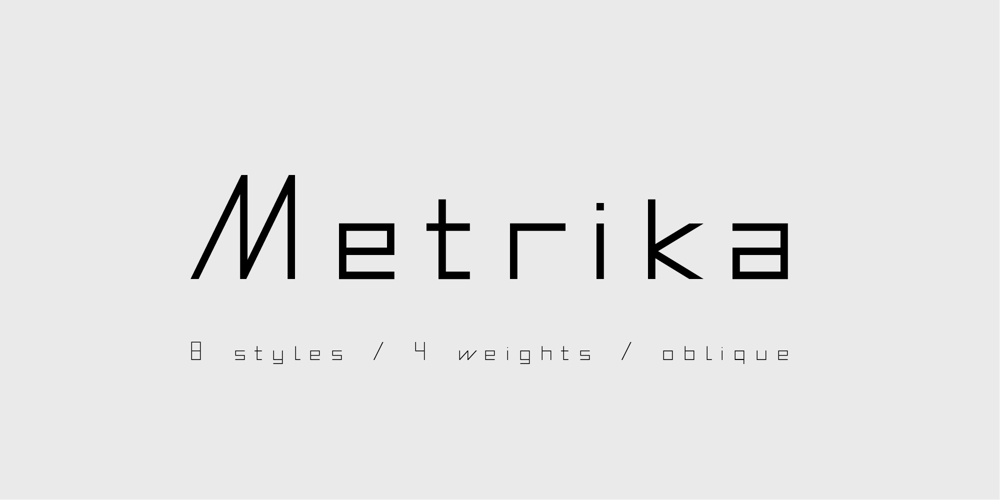
Metrika Font Family was designed by Fidan Aslanova and published by Fidan Fonts. Metrika contains 6 styles and family package options. Metrika is a sans serif font inspired by the trends of technology. It’s works perfectly for headlines, logos, posters, packaging, T-shirts, postcards and many more. It includes full set of uppercase and lowercase basic characters, multilingual symbols, numerals and punctuation (check the previews in order to see them all).Weight: extra light (200 pt), regular (400 pt), bold (700 pt), outline (400 pt).Style: plain, oblique.Latin-based Language Support (You can check your language typing characters in text box below).A summary of what’s included:Metrika extra light (otf)Metrika extra light oblique (otf)Metrika regular (otf)Metrika regular oblique (otf)Metrika bold (otf)Metrika bold oblique (otf)Metrika outline oblique (otf)Happy creating!